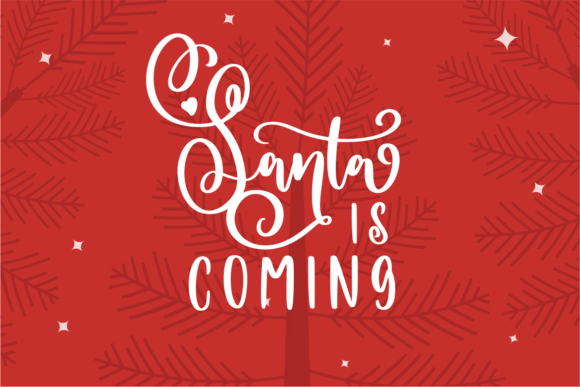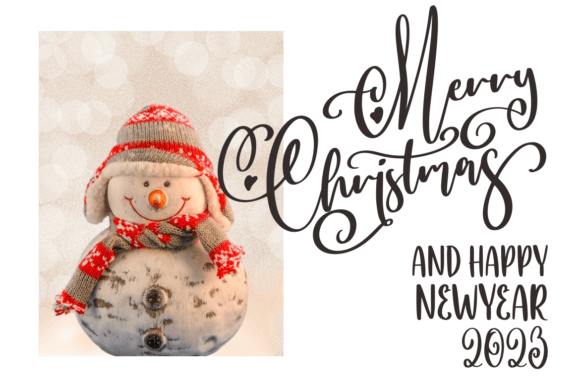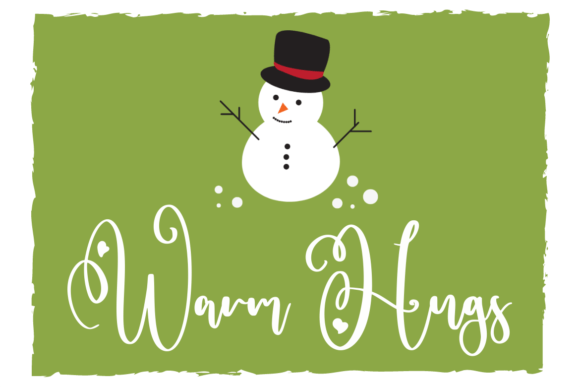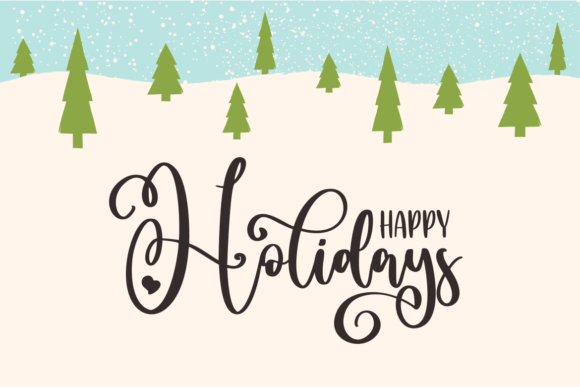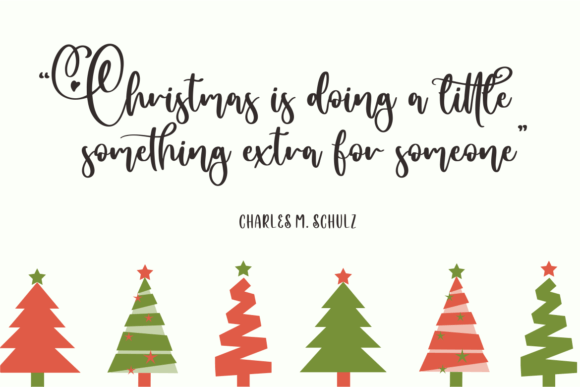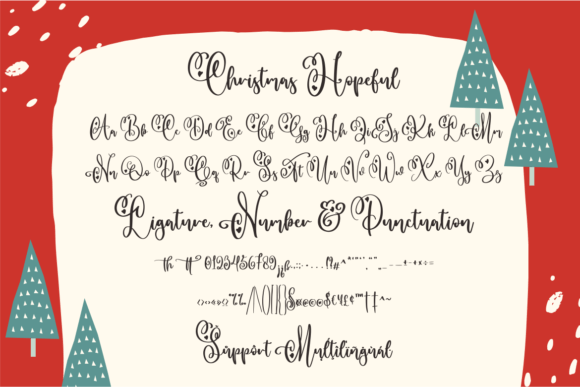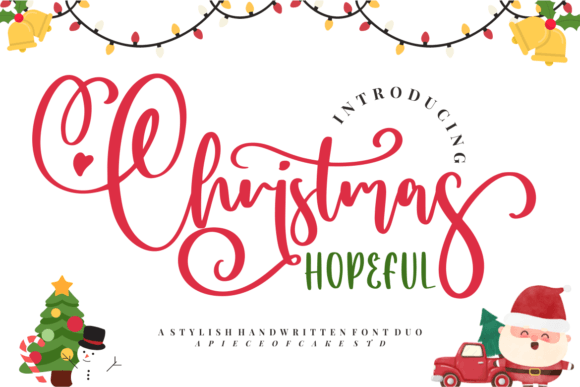
Introducing Christmas Hopeful Duo Font: Add a Romantic Touch to Your Creations
Are you looking for a font that can add a touch of elegance and romance to your designs? Look no further than the Christmas Hopeful Duo Font. This stylish and delicate duo font, consisting of a script and sans serif font, is perfect for a wide range of applications, from greeting cards to headlines.
What Makes Christmas Hopeful Duo Font Special?
Christmas Hopeful Duo Font is a versatile font that can be used for various design projects. The font comes in two styles: a beautiful script font and a clean sans serif font. This duo font is perfect for designers and crafters who want to add a romantic touch to their creations. The font is suitable for:
- Greeting cards: Create beautiful and elegant greeting cards for special occasions like Christmas, Valentine’s Day, and weddings.
- Headlines: Add a touch of sophistication to your headlines with the script font, perfect for titles, subtitles, and taglines.
- Branding: Use the sans serif font for logos, business cards, and other branding materials.
- Digital art: Create stunning digital art, such as illustrations, watercolor designs, and mixed media projects.
Key Features of Christmas Hopeful Duo Font
The Christmas Hopeful Duo Font comes with several key features that make it a must-have for designers and crafters:
- Duo font: Includes both a script and sans serif font.
- PUA encoded: Easy access to glyphs and swashes.
- High-quality design: Delicate and stylish design perfect for romantic and elegant projects.
- Versatile: Suitable for a wide range of applications, from greeting cards to headlines.
Tips for Using Christmas Hopeful Duo Font
Here are some tips for using Christmas Hopeful Duo Font in your designs:
- Mix and match: Combine the script and sans serif fonts to create unique and interesting designs.
- Experiment with swashes: Use the glyphs and swashes to add a personal touch to your designs.
- Play with colors: Use the font with different colors and textures to create stunning designs.
- Keep it simple: Use the font in simple designs, such as greeting cards and headlines, to add a touch of elegance.
Christmas Hopeful Duo Font is a versatile and stylish font that can add a romantic touch to your designs. With its PUA encoding and delicate design, this font is perfect for designers and crafters who want to create elegant and sophisticated projects. Whether you’re creating greeting cards, headlines, or digital art, Christmas Hopeful Duo Font is a must-have in your font collection.